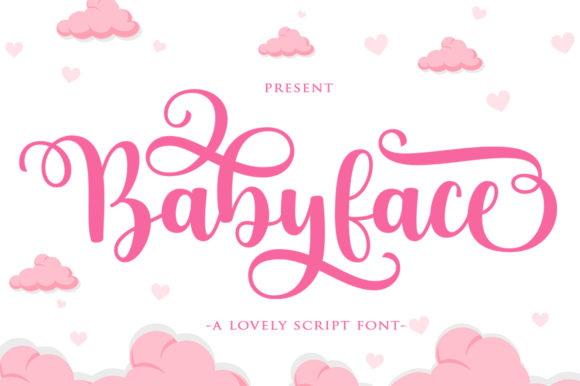
Introducing Babyface Font - The Epitome of Unconventional Charm and Sophistication
In a world saturated with uniformity, Babyface Font emerges as a breath of fresh air, a testament to the power of individuality and creative expression. This captivating handwritten font, lovingly crafted by Attract Studio, is a symphony of strokes that dances across the digital canvas with elegance and grace.
From the moment your eyes meet Babyface Font, you'll be drawn into its alluring embrace. Its graceful curves and playful flourishes exude a sense of whimsy and charm, while its bold strokes lend an air of confidence and authority. Whether you're crafting Valentine's Day cards, heartfelt letters, or eye-catching social media posts, Babyface Font is your perfect companion.
With Babyface Font at your fingertips, you'll discover a world of creative possibilities. Its versatility knows no bounds, effortlessly adapting to a myriad of design projects. From wedding invitations that exude timeless romance to logos that radiate youthful exuberance, Babyface Font has the power to transform your words into works of art.
But Babyface Font is more than just a font; it's an experience. It's a chance to let your creativity soar, to break free from the mundane and embrace the extraordinary. With Babyface Font as your guide, you'll embark on a journey of self-expression, leaving a trail of beauty and inspiration in your wake.